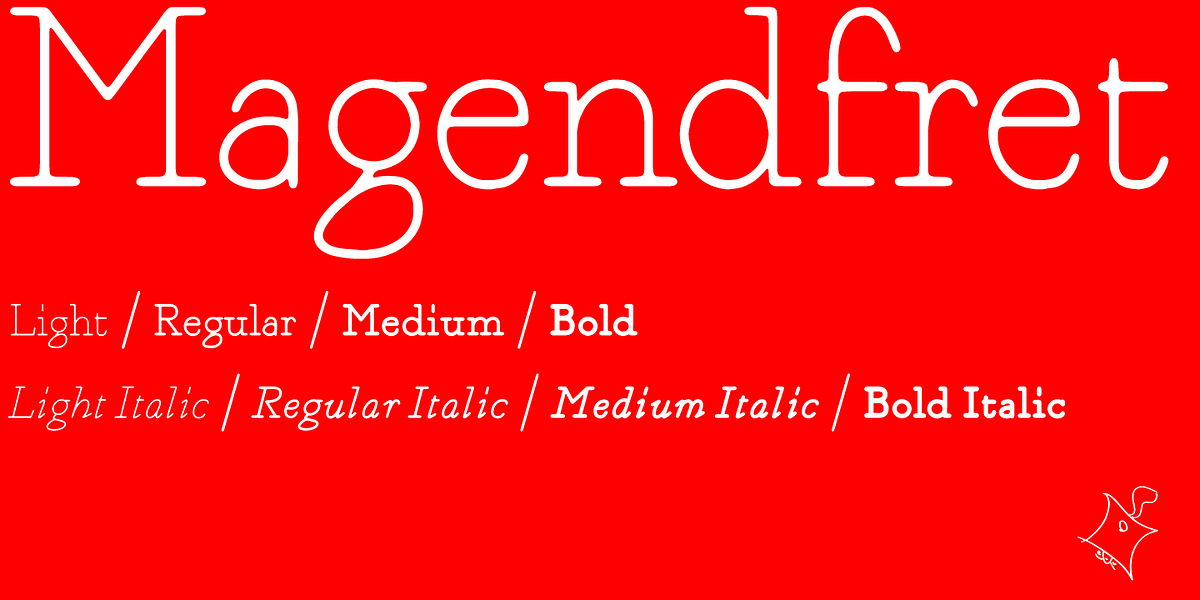
Magendfret
Magendfret is a humanist slab serif typeface designed through a meticulous mechanical process. The designer emphasizes the creation of characters from straight lines and curves, resulting in a unique blend of structure and softness. The font features four weights (Light, Regular, Medium, and Bold), each with uniform line thickness variation, contributing to its distinctive appearance.